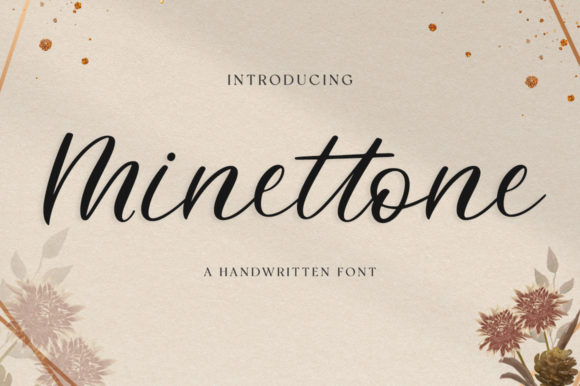
Unleash your inner scriptwriter and let the world witness your artistic flair with Minettone's mesmerizing handwritten font. Beloved by designers for its undeniable charm and elegance, Minettone promises to transform your creative visions into captivating realities.
Picture this: your business cards, adorned with the stylish strokes of Minettone, becoming cherished keepsakes for clients and partners alike. Its graceful swashes dance across the paper, adding a touch of sophistication to your professional identity. Each curve and flourish tells a story of your dedication to detail and your commitment to making a lasting impression.
And it doesn't stop there. Minettone's enchanting aura extends to your social media posts, instantly capturing the attention of your audience. Your words, rendered in Minettone's flowing script, dance off the screen, leaving an imprint that lingers long after the scroll has ended. Whether you're sharing inspiring quotes, heartfelt messages, or captivating product descriptions, Minettone elevates your words, turning them into visual masterpieces.
But Minettone's magic isn't confined to the digital realm. Its versatility shines through in printed materials as well. Imagine your wedding invitations, menus, or greeting cards adorned with Minettone's elegant script. Its timeless beauty will leave your guests swooning, creating memories that will be treasured for years to come.
So, embark on a creative journey with Minettone, where every letter you write becomes a work of art. Let your imagination soar as you witness your ideas transformed into breathtaking creations, captivating the hearts and minds of all who behold them.